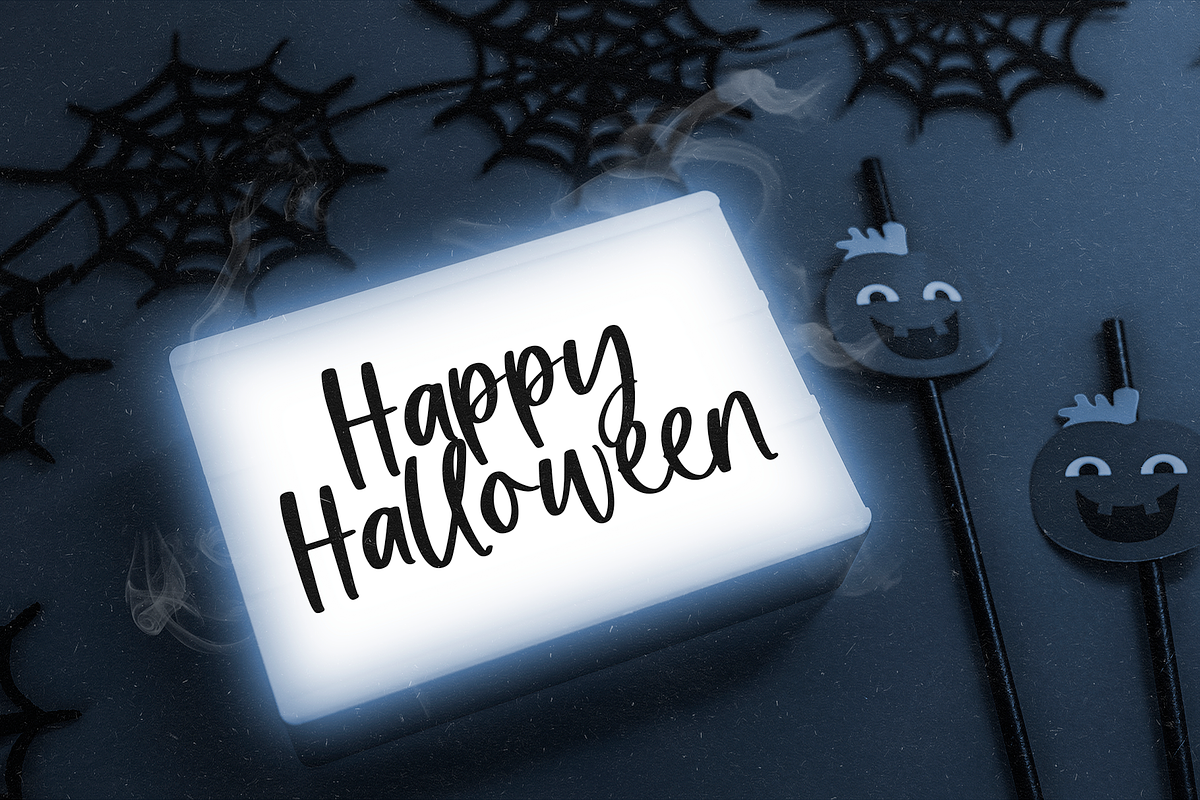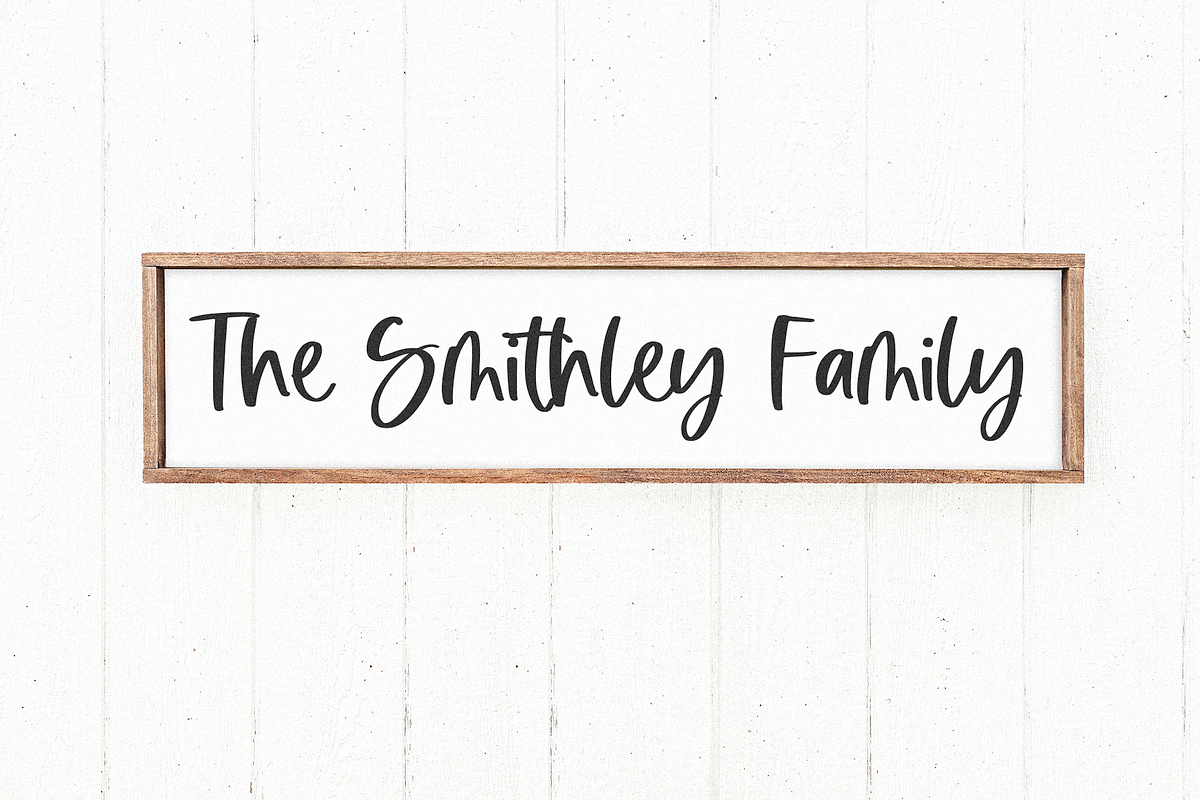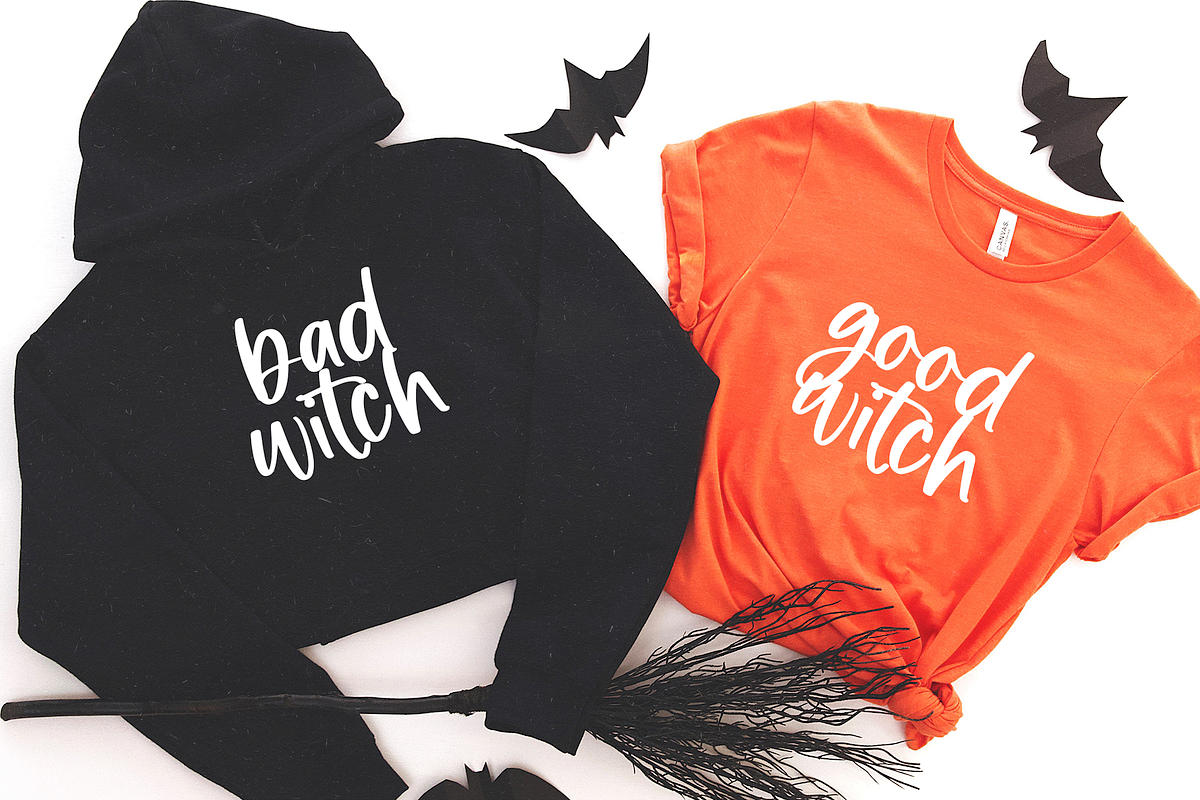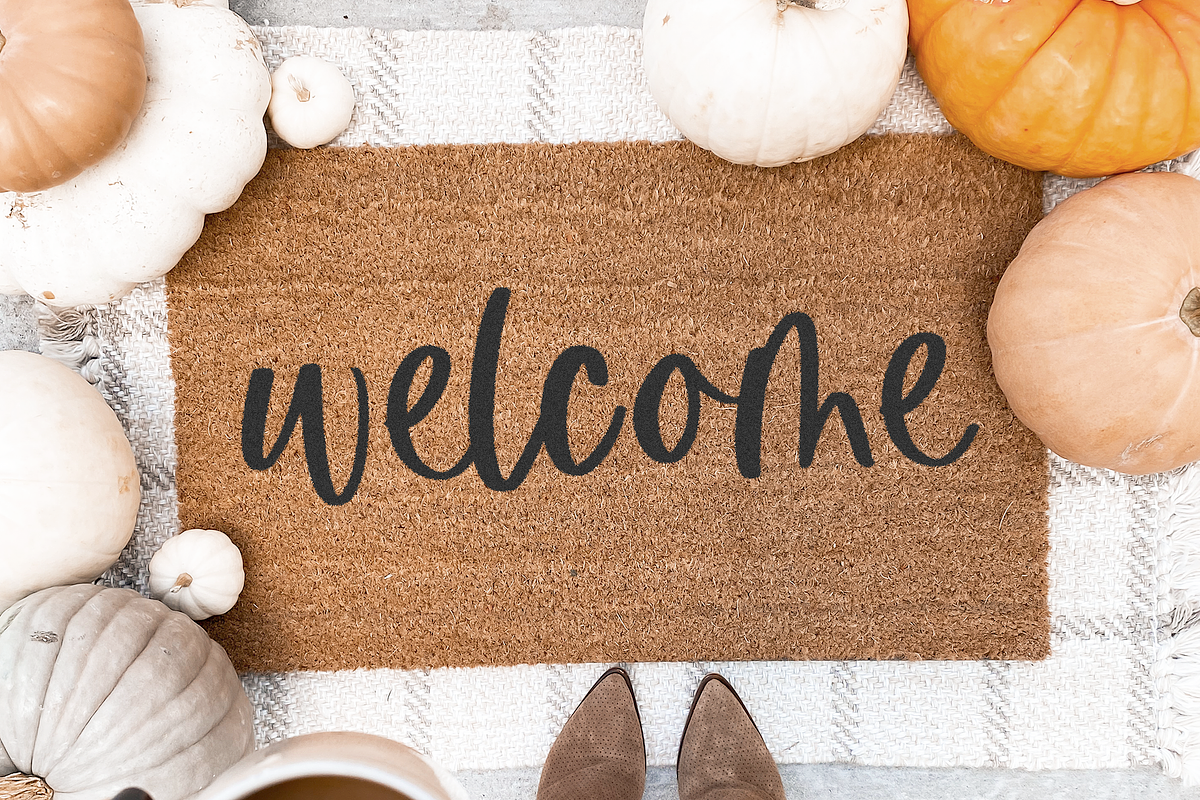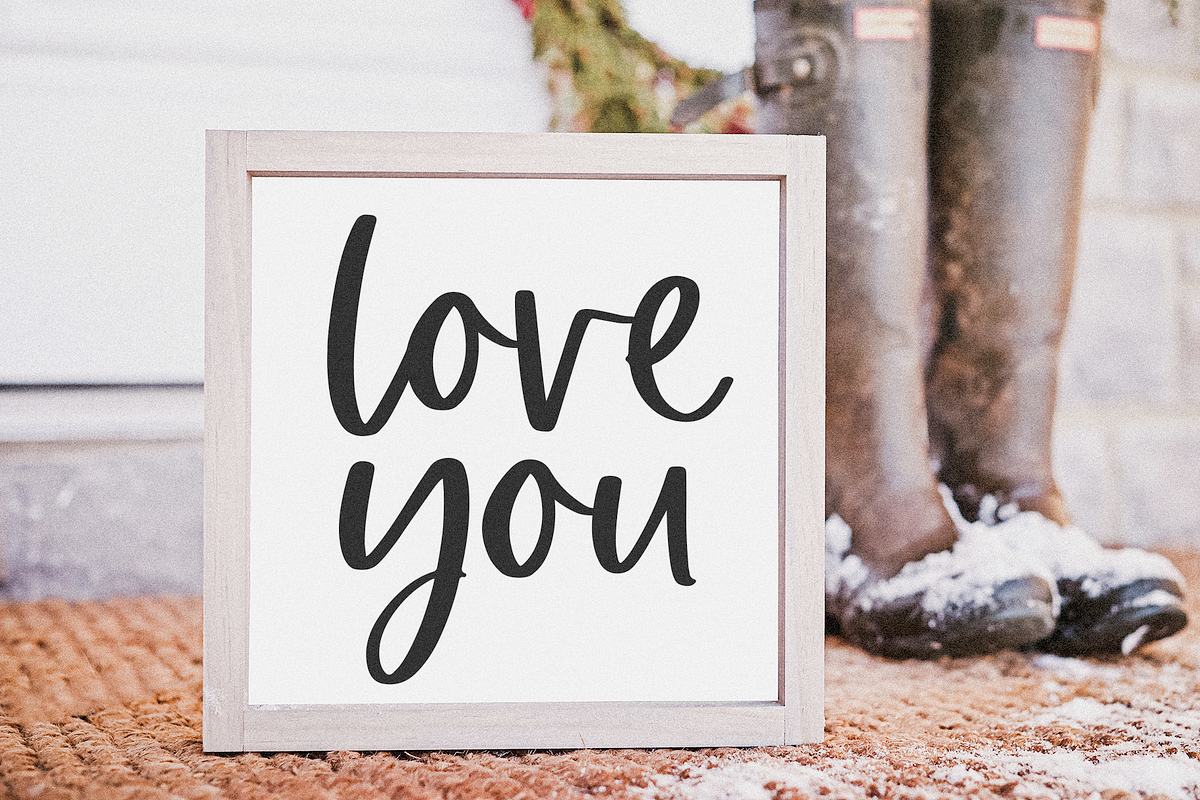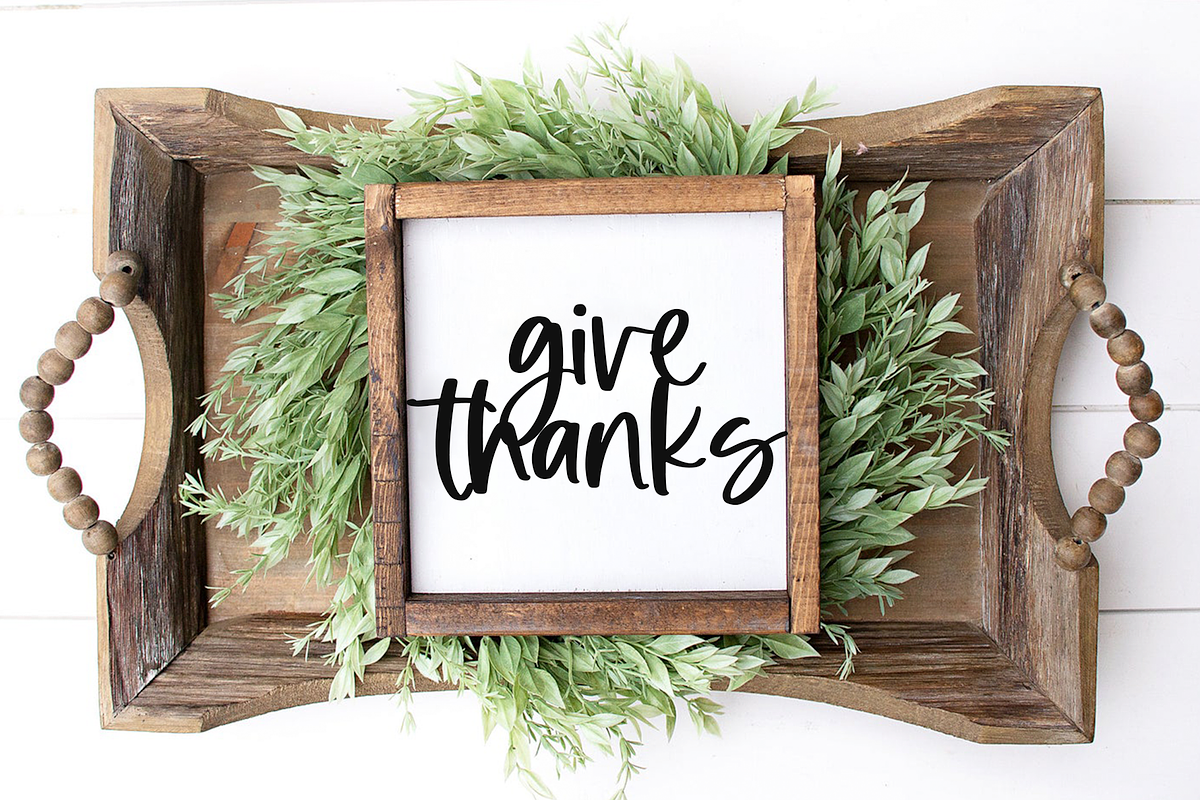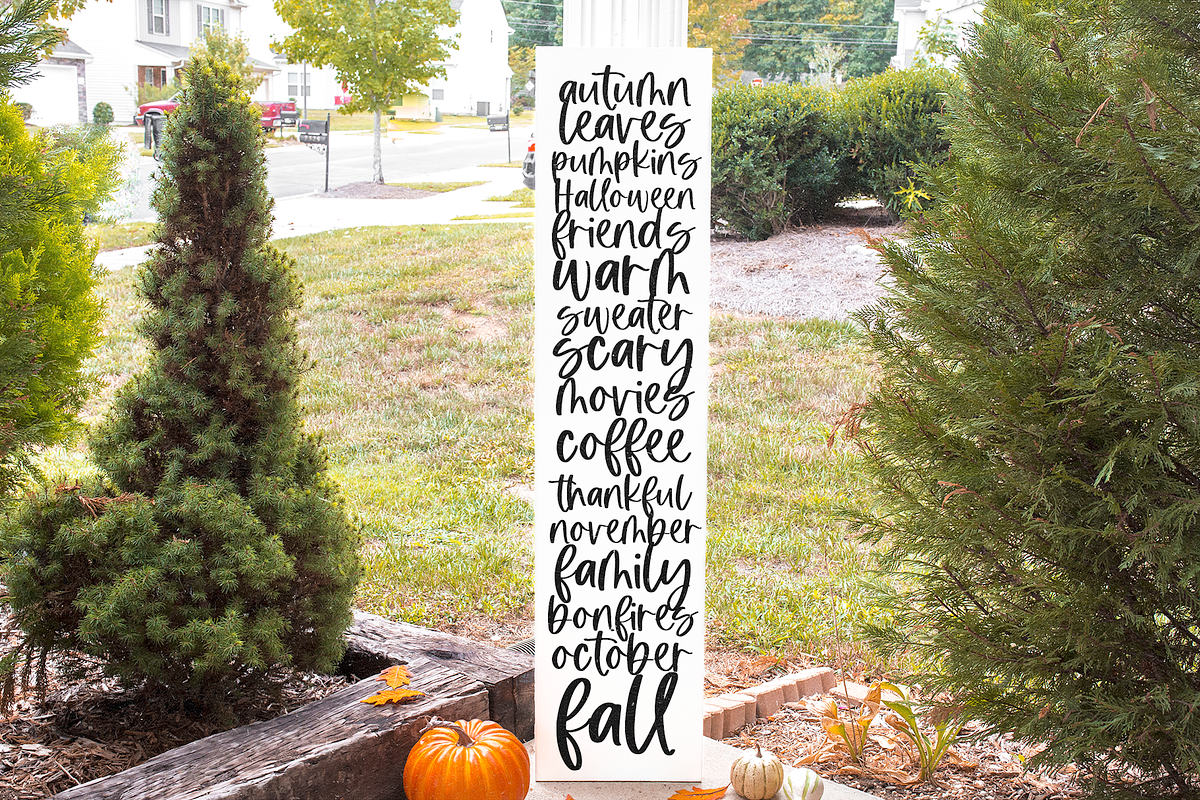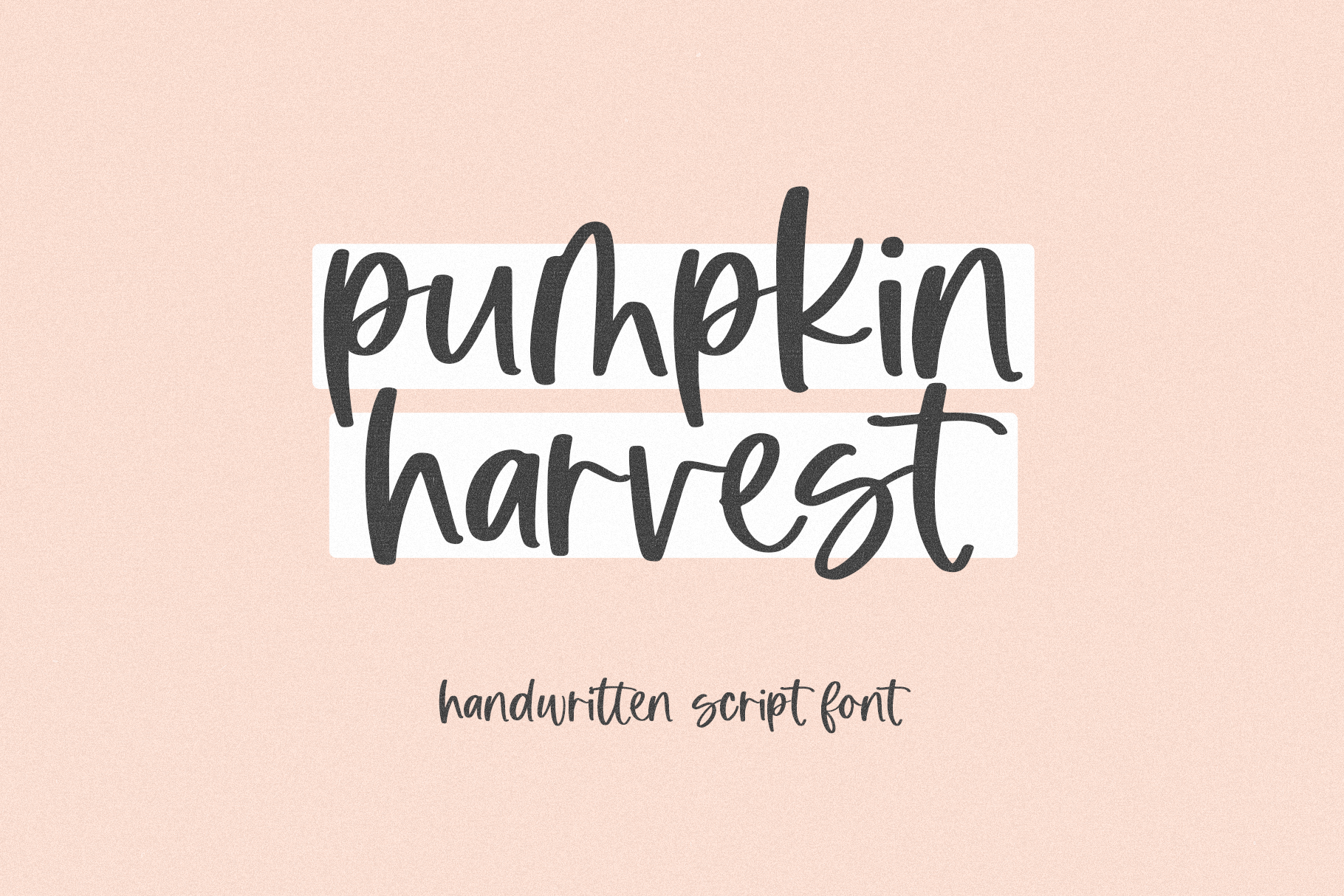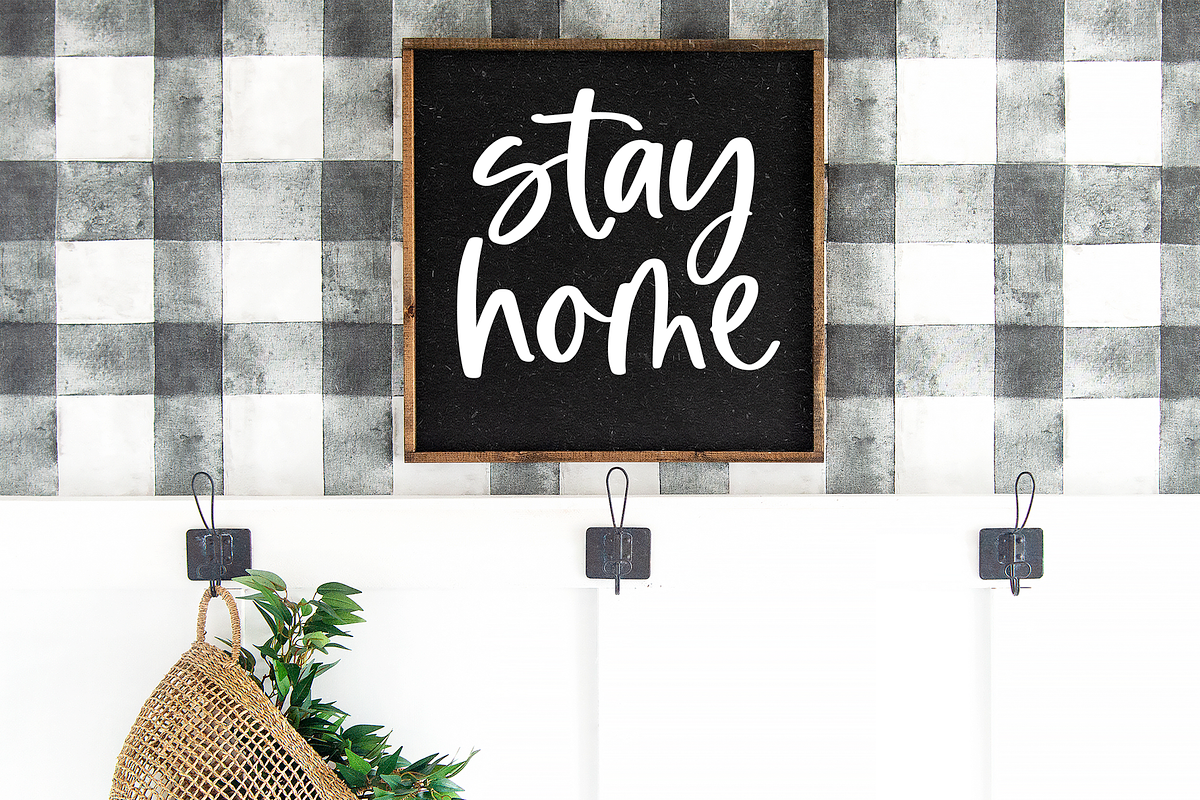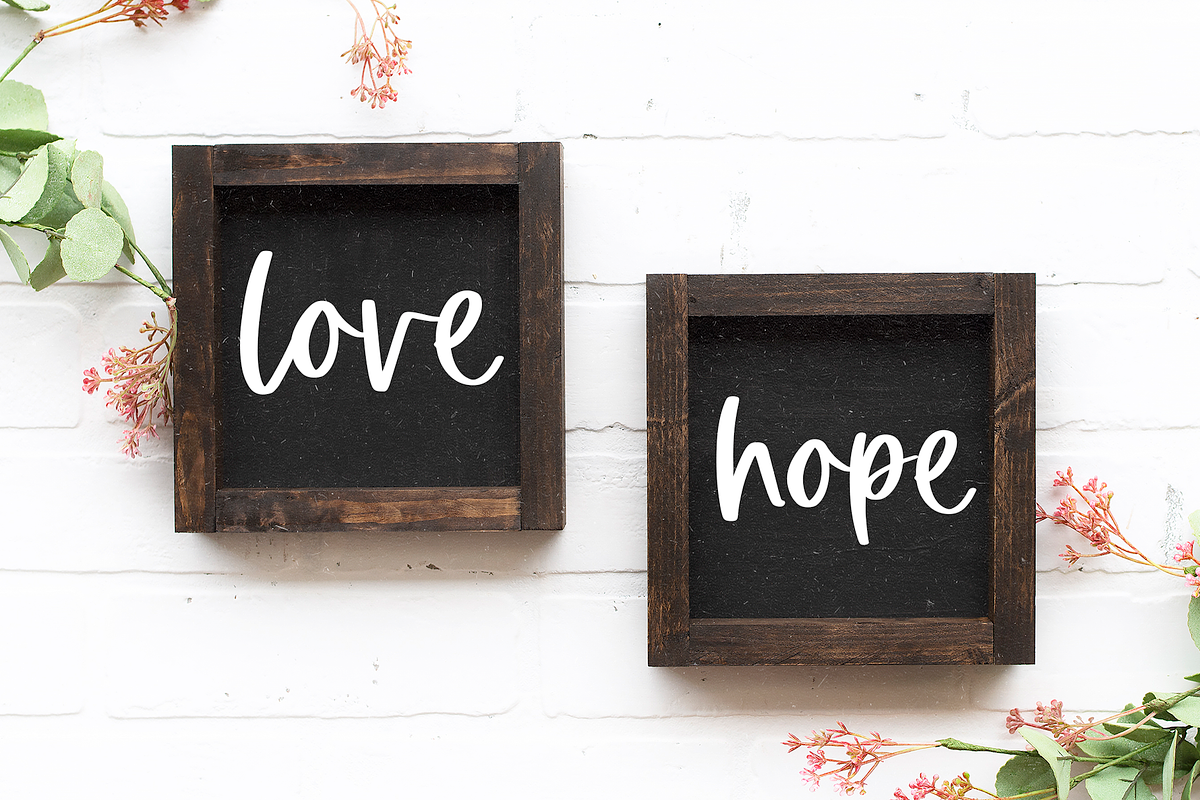
Pumpkin Harvest | Modern Script Font
Pumpkin Harvest is a modern handwritten script font!
This font is perfect for branding, logos, invitations, business cards, web, instagram, social media, quotes, prints, wall decor, cricut projects, and more!
Most accent letters included.